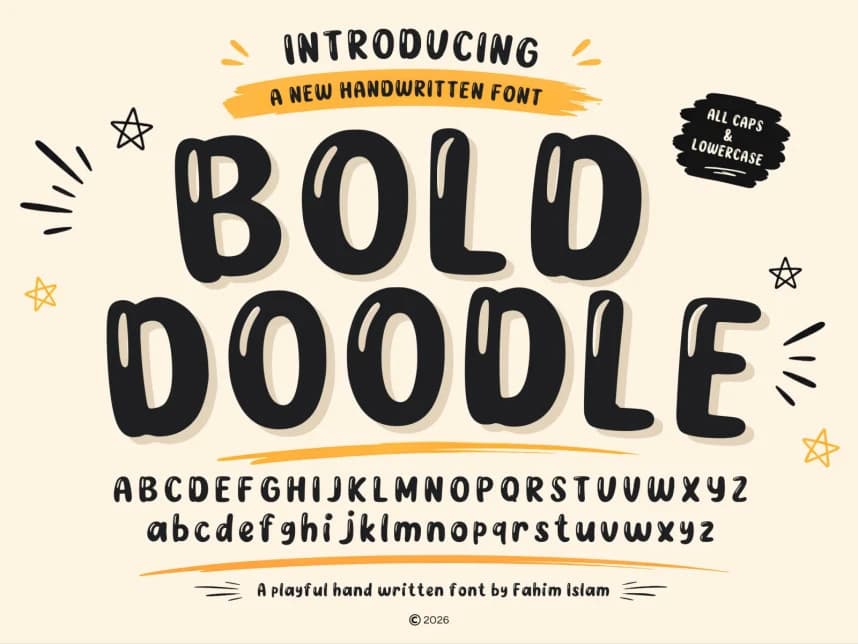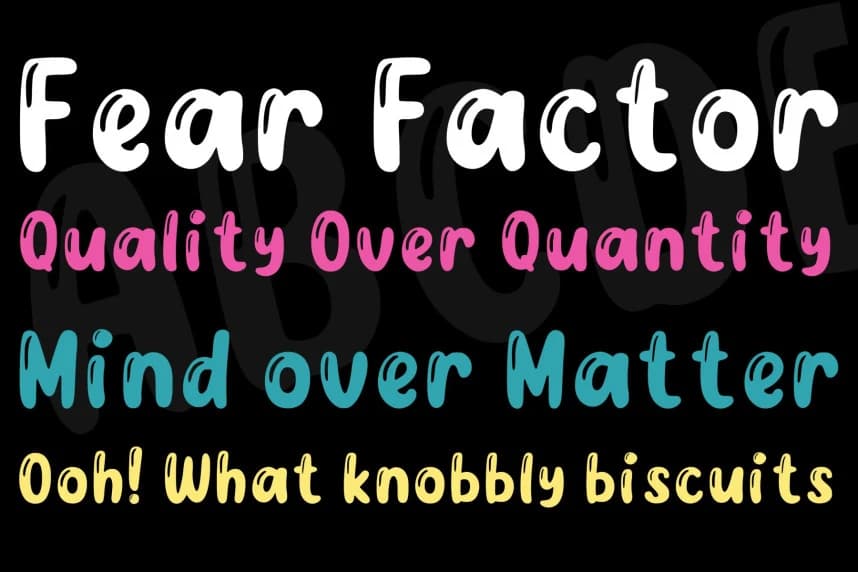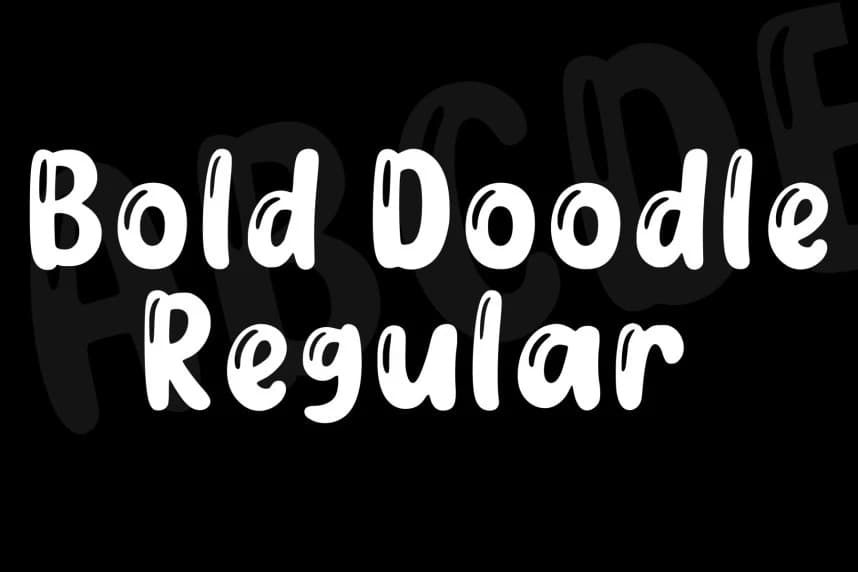
Bold Doodle Font
Bold Doodle Font is a bold and playful handwritten display font designed to bring energy, creativity, and personality to your designs. With its expressive strokes and doodle-inspired character, this font delivers a fun yet impactful visual style.